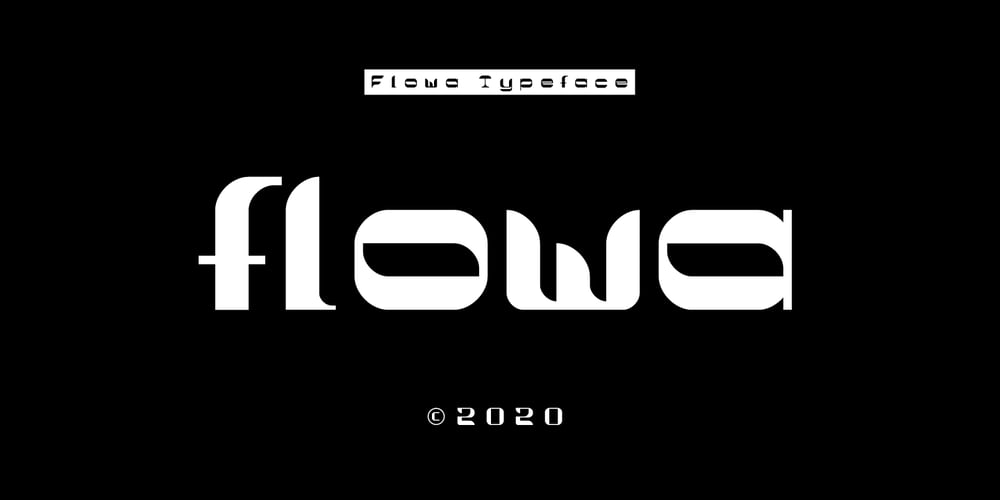
Flowa
Flowa font
Flowa Font Family was designed by Cihangir Öziş and published by Cihangir Öziş. Flowa contains 1 styles and family package options. Flowa typeface is designed to make a difference in your work with its strong and contrasting stance that contain in itself soft and hard lines simultaneously. Flowa is suitable for branding, album cover designs, posters designs, packaging and editorial. It can be used for websites and digital media. It is an excellent choice for short sentences, big hero titles, unique logo fonts, in particular.